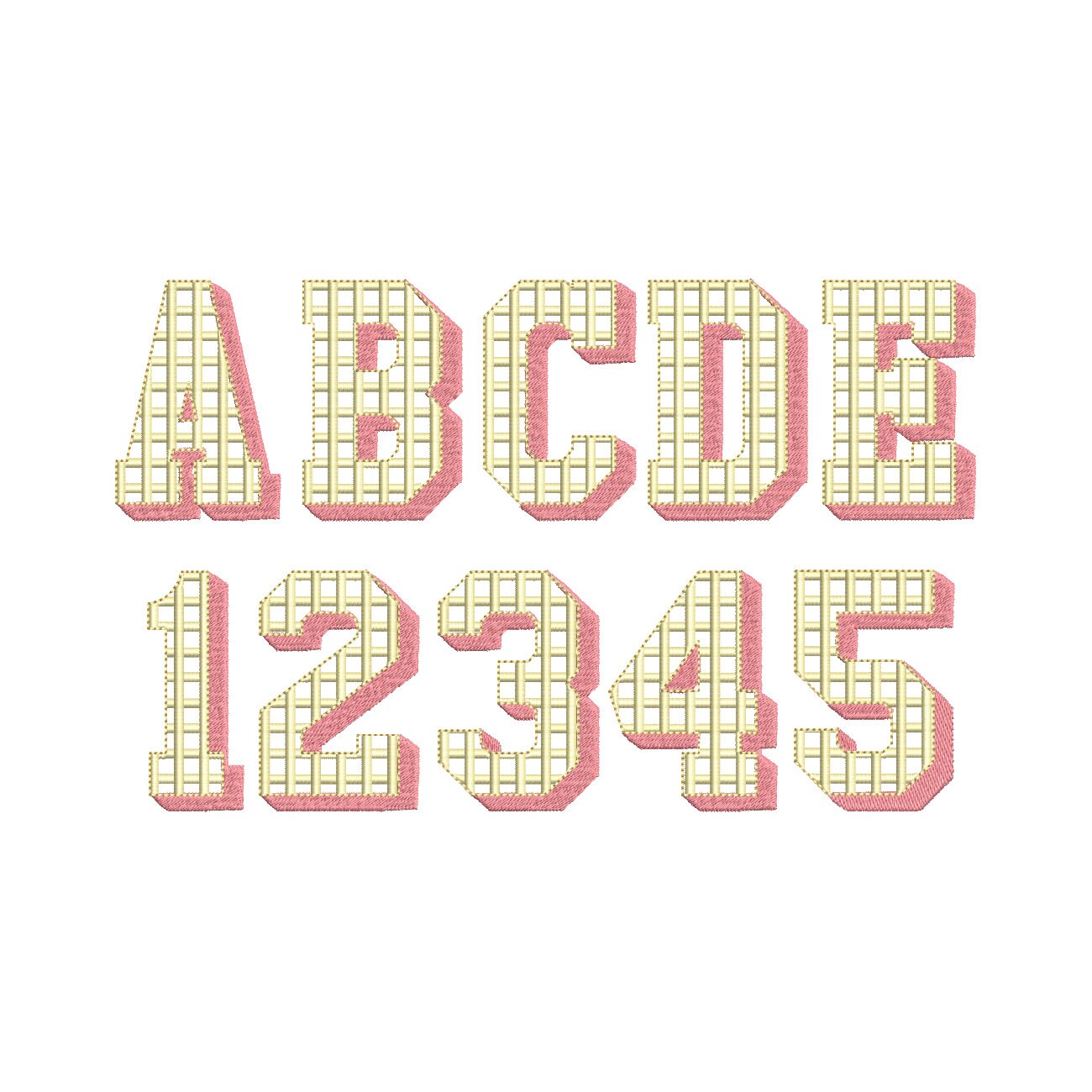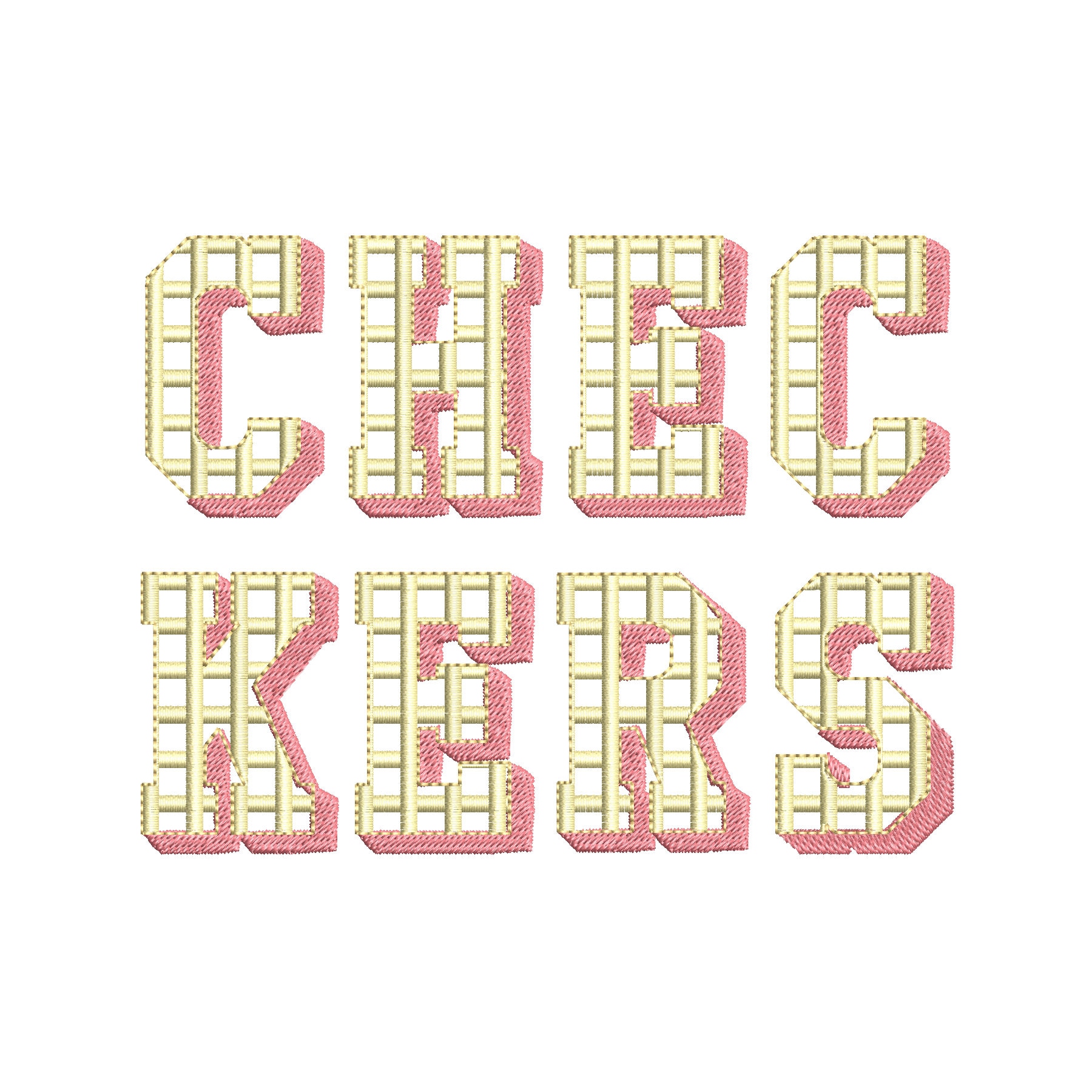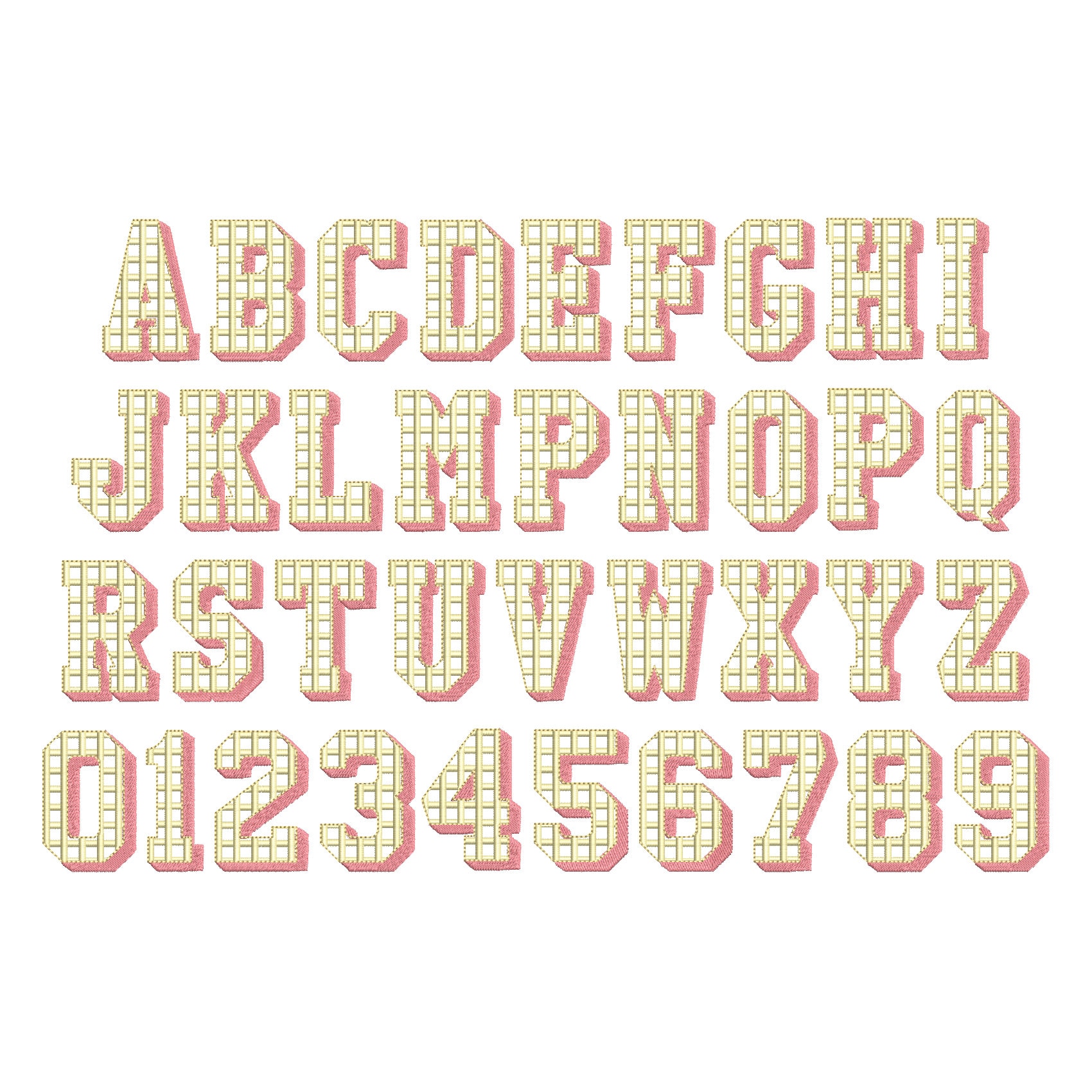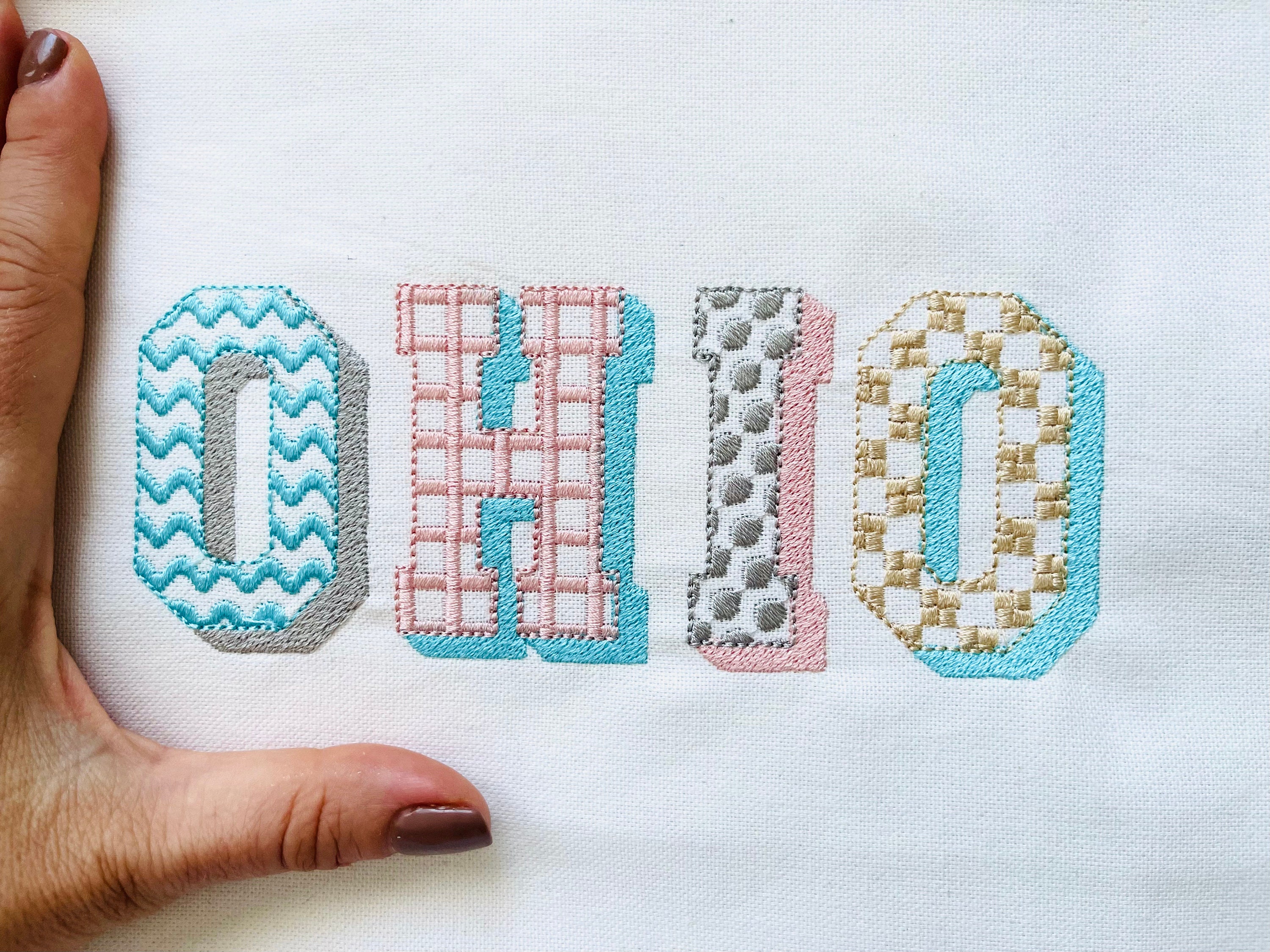
Checkers Patterned Font 3 three colors Shadow Alphabet letters and numbers machine embroidery design assorted sizes block type shadowed font
The font is transparent and has satin stitch checks, a fill stitch shadow, and a bean stitch outline.
Whole alphabet uppercase A-Z and numbers 0-9